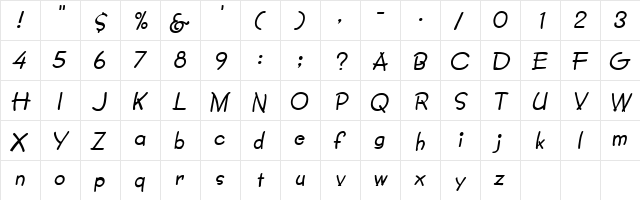
Nicety Oblique
Design Context for Nicety Typeface
Nicety offers clean, dependable letterforms without strong stylistic allegiance, making it a practical choice for designers who need flexibility. The dynamic lean of this cut emphasises speed and emphasis in any layout.
Pro Tip: Try Nicety for annotation and caption copy alongside an upright companion — the contrast in angle creates a dynamic but ordered typographic system.